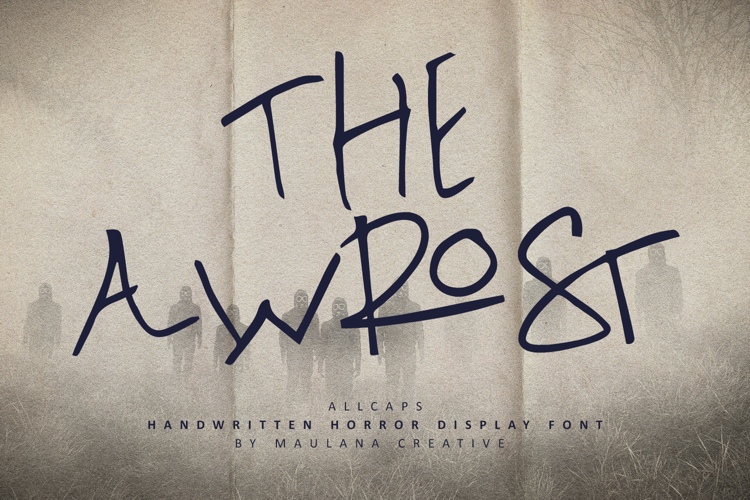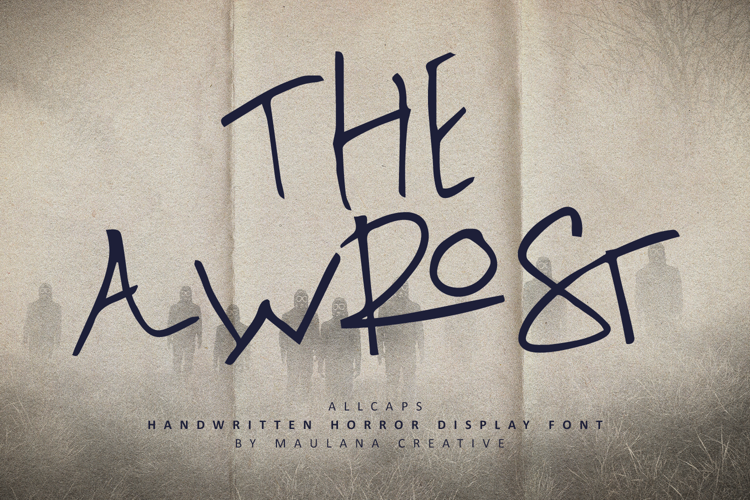
Awrost is a authentic handmade handwritten font. With bold stroke, fun character with a bit of ligature. To give you an extra creative work. Awrost font support multilingual more than 100+ language. This font is good for logo design, Social media, Movie Titles, Books Titles, a short text even a long text letter and good for your secondary text font with sans or serif. Make a stunning work with Awrost font.